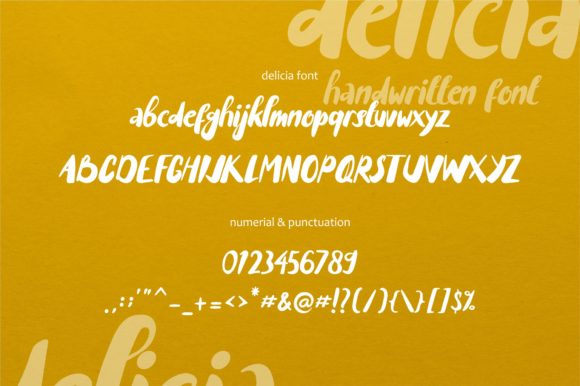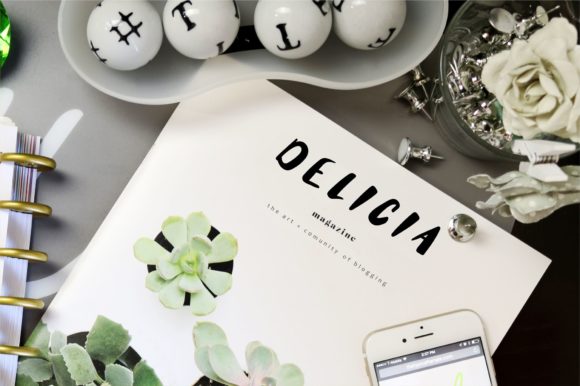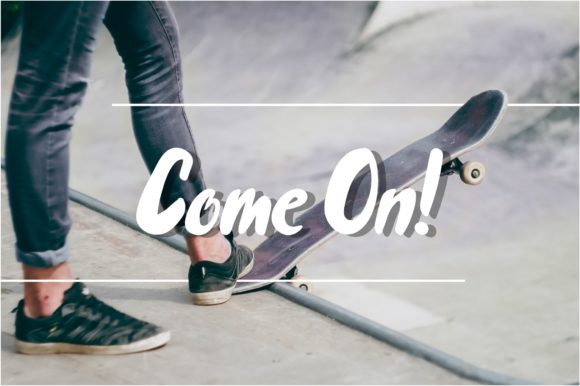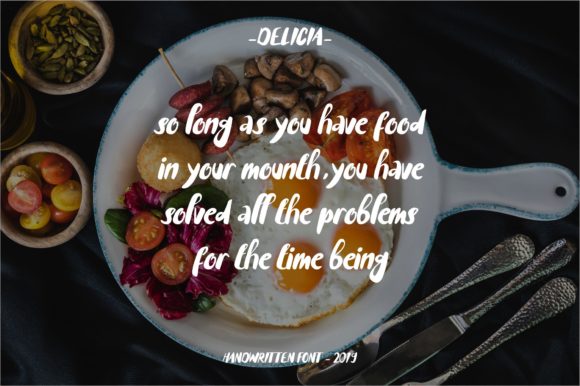
The Delicia Font: A Fresh and Simple Typeface for Creative Projects
I’ll never forget the time I was working on a project for a client who wanted a font that would add a natural, effortless feel to their brand. I scoured the internet, tried out countless fonts, but nothing seemed quite right. That was until I stumbled upon the Delicia font. Its handwritten touch was exactly what I needed to bring a sense of warmth and approachability to the project. In this article, I’ll share my experience with the Delicia font, its features, and how to make the most of it in your creative projects.
A Personal Review of Delicia Font
What I Love About Delicia Font
- ✨ Fresh and simple design that works well for a variety of projects
- ✅ Handwritten touch adds a natural feel to quotes, magazines, menus, and more
- 💡 Highly legible, even at small font sizes
- 🎨 Versatile and can be used for both digital and print projects
While Delicia font is a great choice for many projects, there are a few things to keep in mind:
- 🤔 Limited availability of stylistic alternates, which may not offer as much flexibility for some users
- ⚠️ Not ideal for body text, as it’s best suited for headings and titles
The Story Behind Delicia Font
The Delicia font was designed with the intention of creating a fresh and simple typeface that would add a natural feel to creative projects. The designer aimed to create a font that would be highly legible, yet still have a unique and personal touch. The result is a beautiful, handwritten font that works well for a variety of projects.
Q: What type of projects is Delicia font best suited for?
A: Delicia font is best suited for projects that require a natural, effortless feel, such as quotes, magazines, menus, and more.
Q: Is Delicia font available in different weights or styles?
A: Delicia font may be available in different weights or styles, but it’s best to check with the font designer or foundry to confirm.
Q: Can I use Delicia font for body text?
A: While Delicia font is highly legible, it’s best suited for headings and titles. For body text, you may want to consider a font that’s specifically designed for reading.